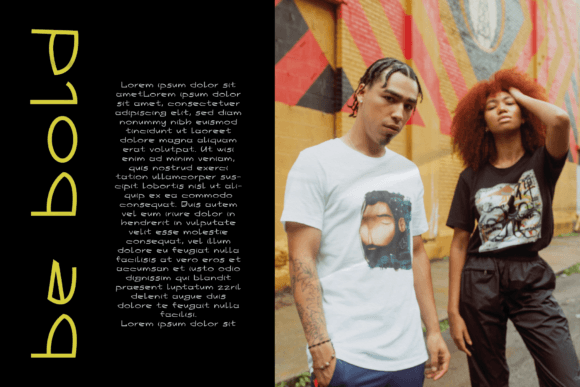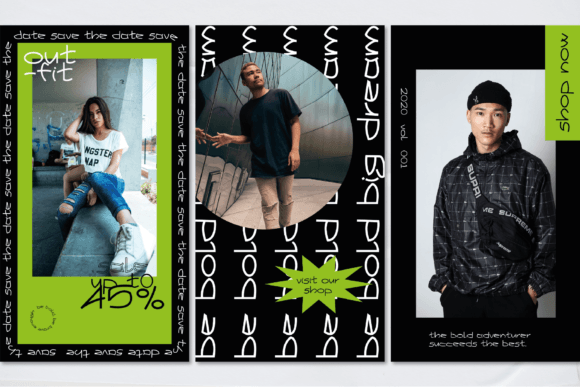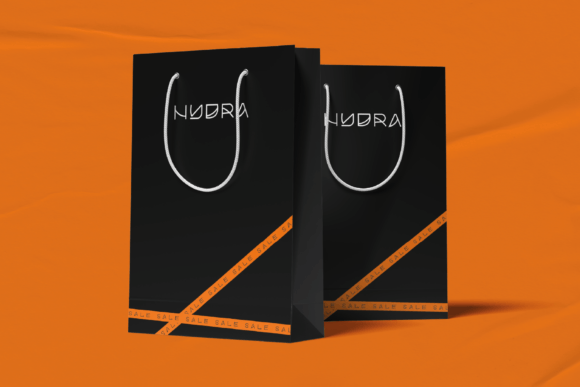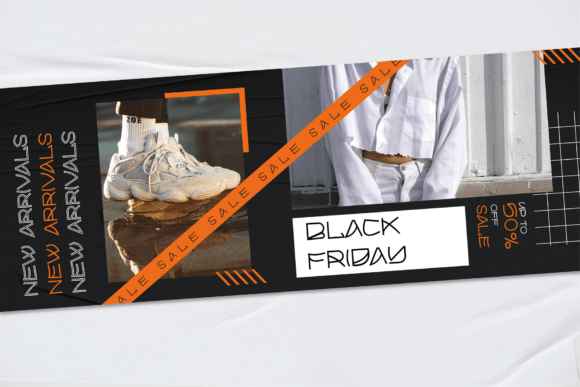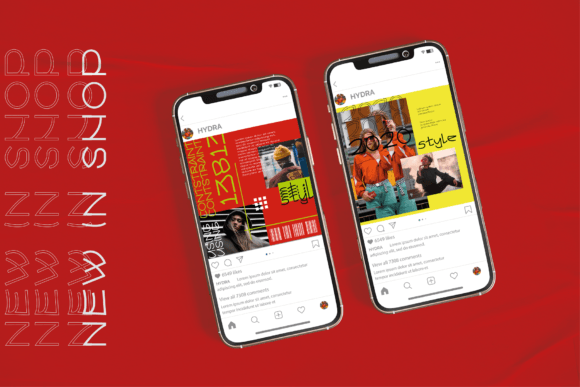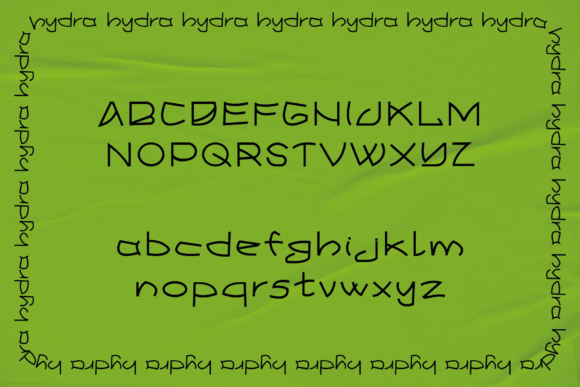
Get Ready to Unleash Your Creativity with Hydra Font
Have you ever stared at a blank page, struggling to come up with the perfect design concept? The blank canvas can be intimidating, but sometimes all it takes is a spark of inspiration to set your imagination ablaze. That’s where Hydra Font comes in – a quirky, eye-catching display typeface designed to make your designs stand out from the crowd.
Hydra Font is perfect for those looking to add a touch of personality to their work, whether it’s a fashion brand, a poster, or even a social media post. With its intricate letterforms and unique style, this experimental font is sure to grab attention and leave a lasting impression. As a designer, you know how valuable a versatile font like Hydra can be – it’s the perfect tool to take your designs to the next level and make them truly unforgettable.
Key Features of Hydra Font
- Unique Characteristics: Hydra Font features a unique blend of modern and vintage elements, with a bold and striking design that makes it stand out in any design project.
Hydra Font Review
Overall, I found Hydra Font to be a decent addition to any font collection, offering some unique characteristics that can elevate the visual appeal of a project. ✨ Here are some of the things that work well:
- Expressive letterforms: Hydra Font features bold, dynamic letterforms that can add a touch of personality to any text.
- Customizable: The font comes in a range of weights and styles, allowing designers to fine-tune the look to suit their needs.
- Clean design: Despite its bold appearance, Hydra Font has a clean design that makes it easy to read and use in various contexts.
However, I also encountered some limitations that might make it less appealing to some designers. ⚠️ Here are a few things to consider:
- Limited support: Hydra Font may not be as widely supported as some other fonts, which could lead to compatibility issues in certain applications.
- No italics: The font does not come with italics, which might be a drawback for designers who rely on italic text for emphasis or to create a specific aesthetic.
- Not ideal for small text: Due to its bold design, Hydra Font may not be the best choice for small text or body copy.
Overall, I would recommend Hydra Font for designers who want to add a bold, expressive touch to their projects. However, it may not be the best choice for every situation, and designers should carefully consider its limitations before using it in their work.
The Hydra Font is ideal for:
- Creatives looking for a modern and unique font.
- Designers working on branding and identity projects.
- Businesses seeking a professional and sophisticated font.
Getting the Most Out of Hydra Font
To get the most out of the Hydra Font, consider the following tips:
- Experiment with different font sizes and styles.
- Combine Hydra Font with other fonts for a unique look.
- Use Hydra Font for headings and
Alternatives to Hydra Font